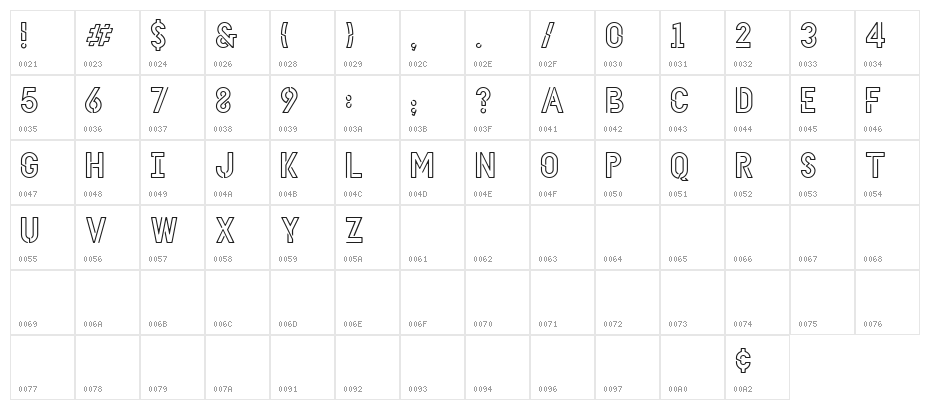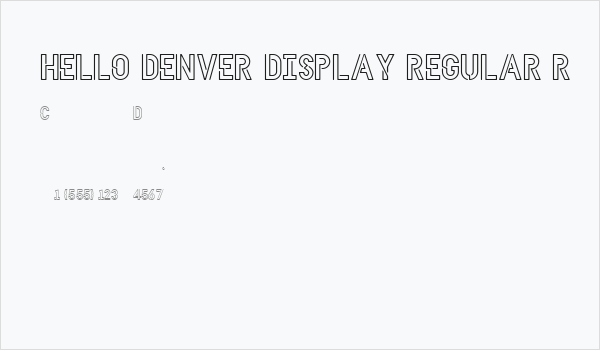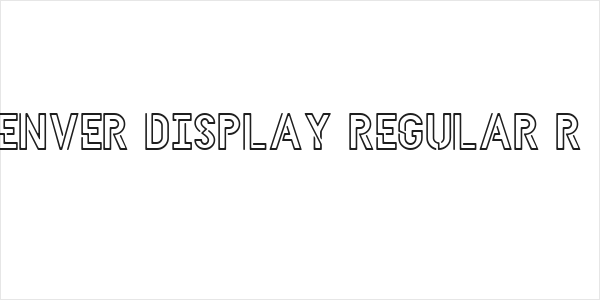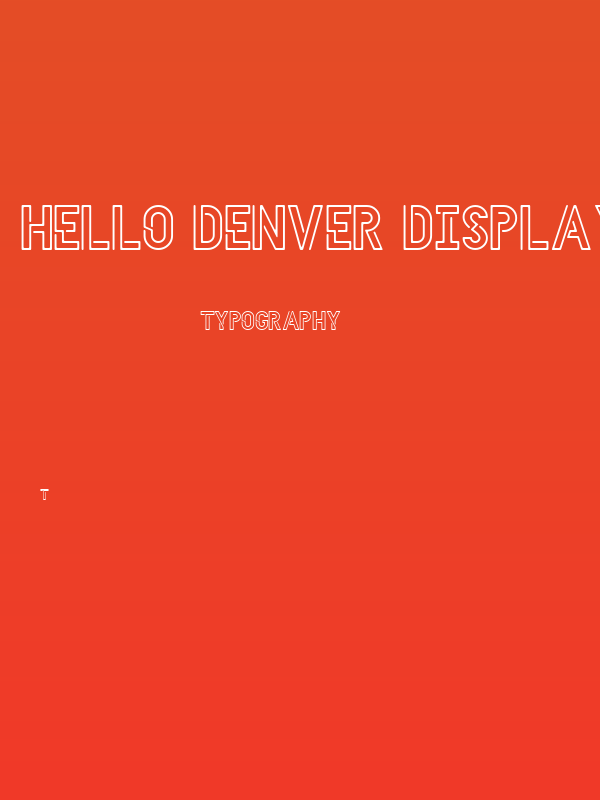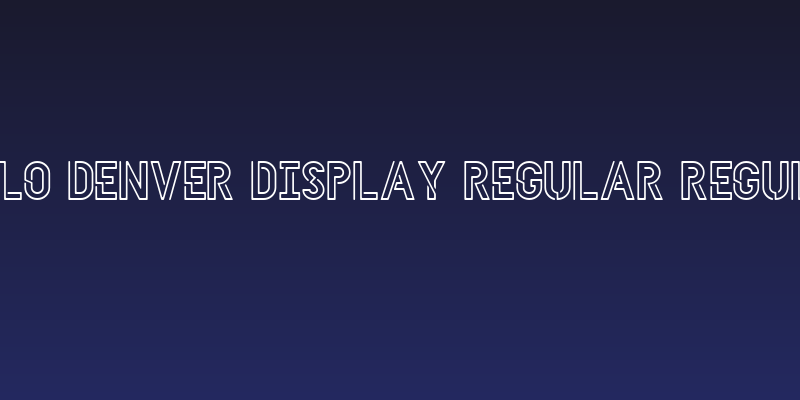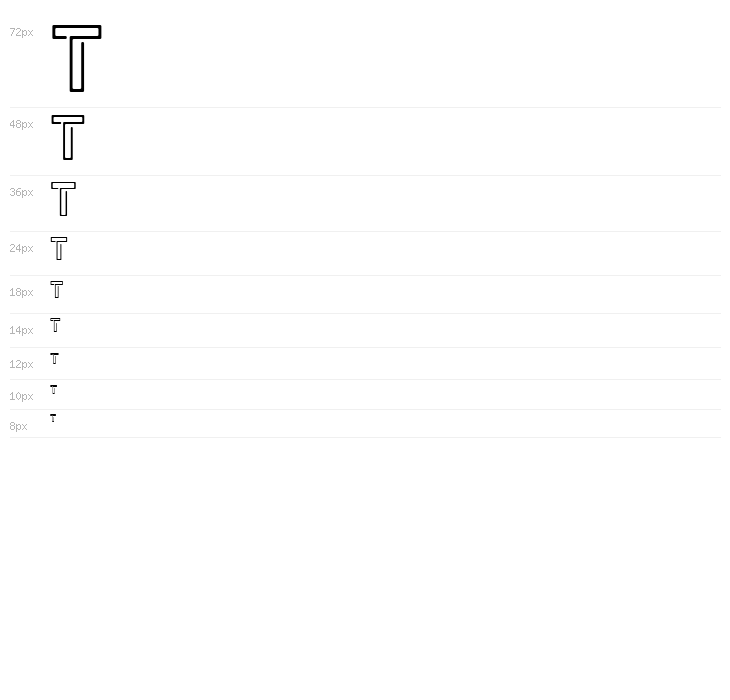
HELLO DENVER DISPLAY REGULAR Regular Font
HELLO DENVER DISPLAY REGULAR Regular Description
This font features a bold, geometric design with a modern and industrial feel. The letters are outlined, creating a hollow effect that adds depth and dimension. The uppercase letters are uniform in height, with sharp angles and clean lines that convey a sense of precision and strength. The numerals and special characters maintain the same stylistic approach, ensuring consistency across all elements. This font is particularly well-suited for display purposes where a strong visual impact is desired.